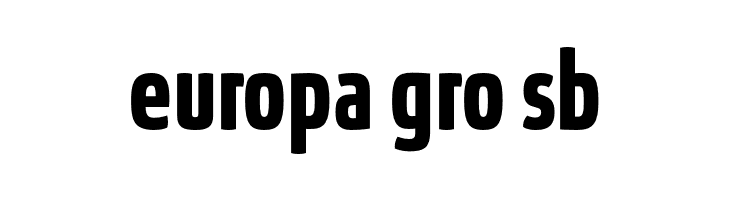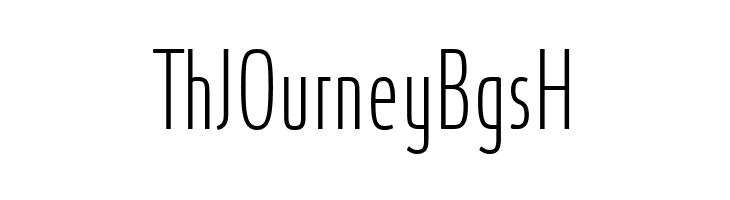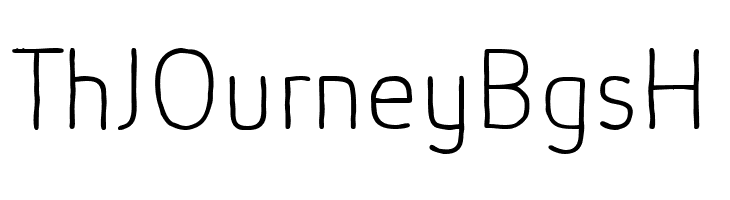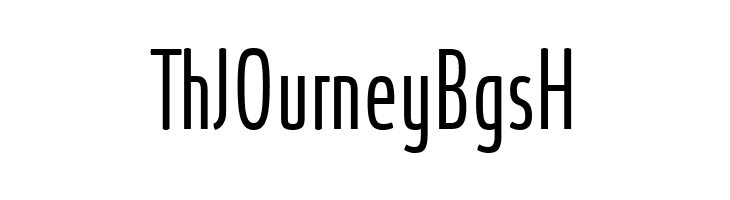
A playful, hand-drawn font with rounded, consistent strokes and a sketch-like quality.
A thin, hand-drawn font with a sketch-like, artistic appearance.
Ultra-condensed, bold font with a modern and impactful style.
A highly condensed sans-serif font with uniform strokes and minimal contrast.
A modern, ultra-condensed sans-serif font with tall, narrow characters.
A bold, ultra-condensed font with tight spacing and strong visual impact.
A sleek, ultra-condensed typeface with thin, elongated letterforms.
A bold, modern unicase font with geometric shapes and rounded edges.
A modern, geometric unicase font with clean, rounded characters.
A bold, condensed font with a modern and impactful style.